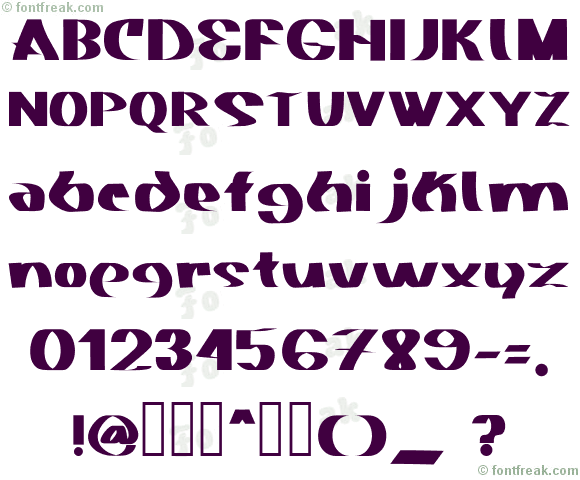
Akasic Medium
Akasic Medium Italic
About Akasic Medium
The Akasic Medium font, designed by Manuel Ramos in 2014, is a striking display typeface that captivates with its bold, expressive style. As a decorative font, it features unique letterforms that blend creativity with readability, making it an excellent choice for various design projects. The font showcases a medium stroke weight with a playful contrast that enhances its visual appeal. The spacing between letters is carefully considered, allowing for a balanced appearance, while the italic style adds a dynamic flair, making it feel both contemporary and engaging.
Akasic Medium is perfect for a range of applications, including eye-catching movie posters that require a bold statement, stylish restaurant menus that aim to attract diners, and vibrant event flyers that need to stand out in a crowd. Additionally, this font can be effectively used for branding materials where a unique identity is paramount, such as logos or packaging designs. Its versatility makes it suitable for graphic designers, small business owners, and content creators looking for a distinctive typeface to elevate their projects.
One of the standout features of the Akasic Medium font is its ability to convey personality without sacrificing legibility. It captures attention and evokes a sense of creativity, making it a valuable addition to any designer's toolkit. Whether you are crafting an advertisement, designing a website, or creating social media graphics, the Akasic Medium font is an excellent choice. With its availability as a freeware, users can enjoy the benefits of this unique typeface without any financial barriers. Explore the creative possibilities with the Akasic Medium font free download and elevate your design projects today.
Author Manuel Ramos